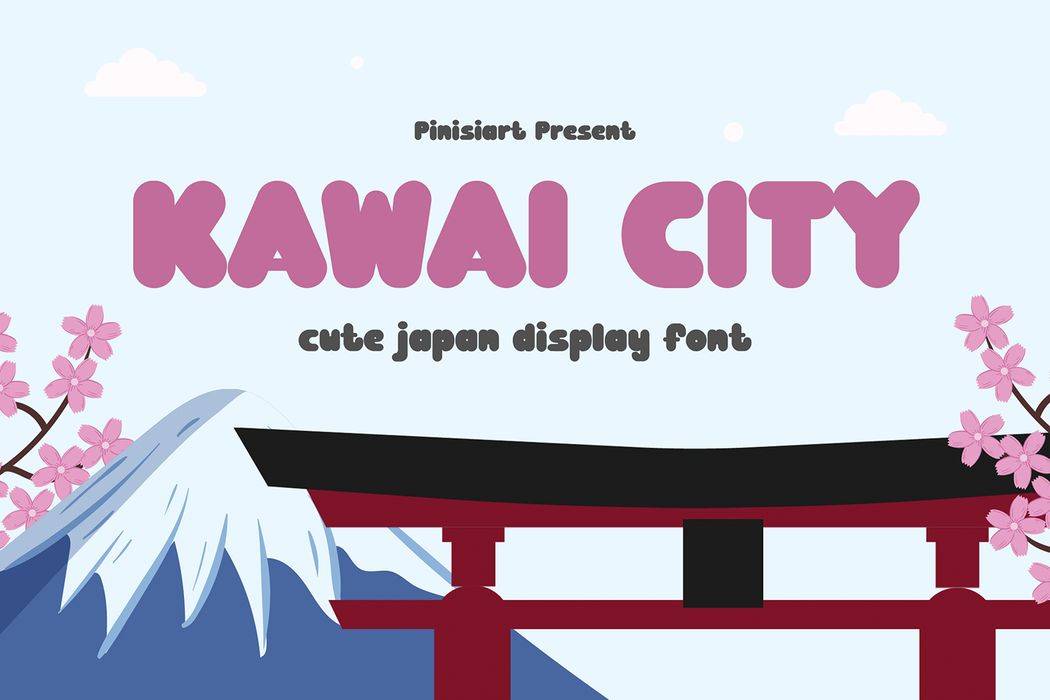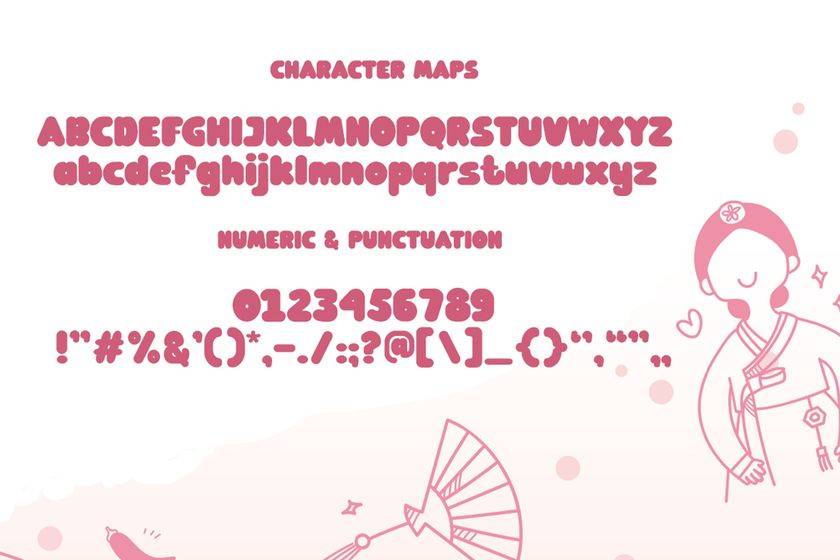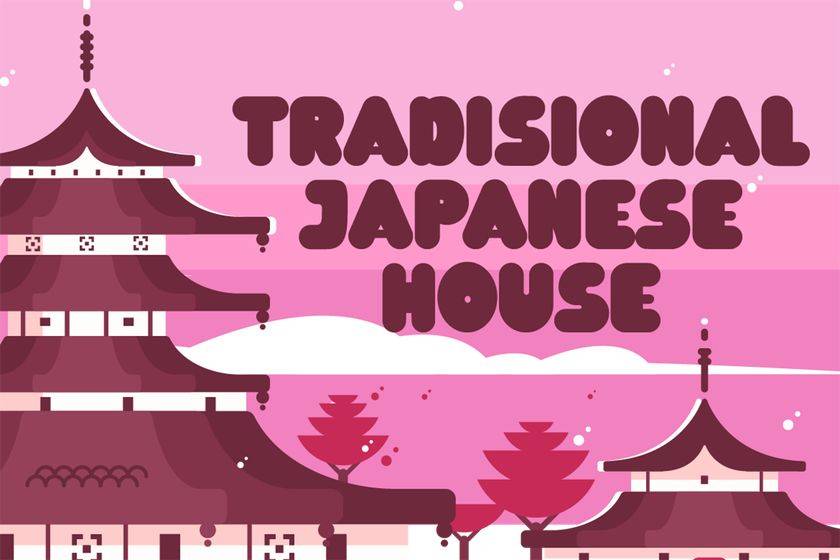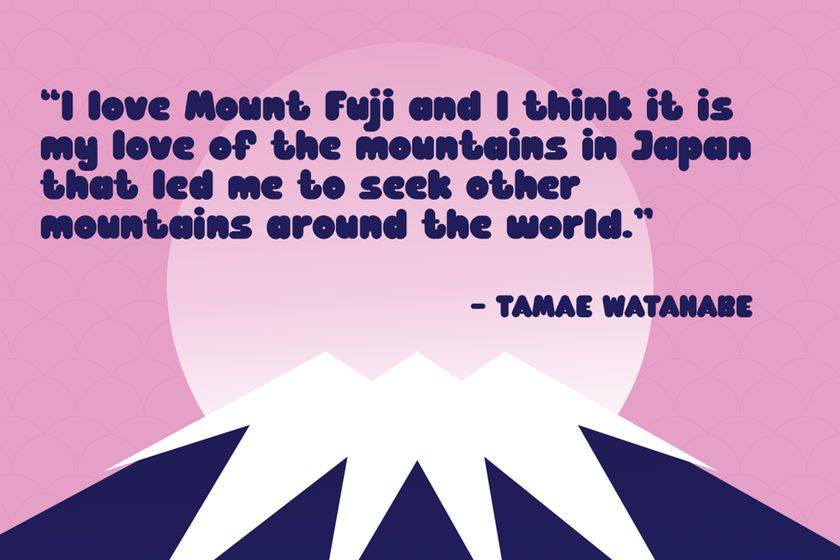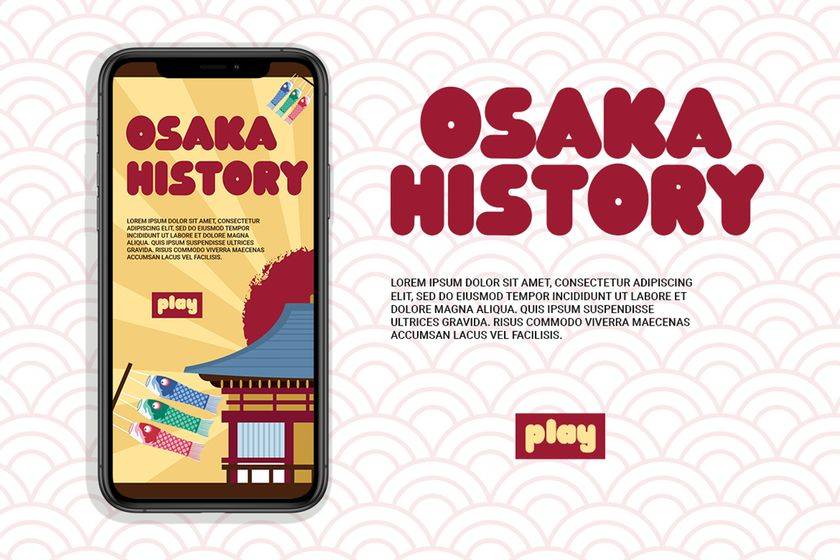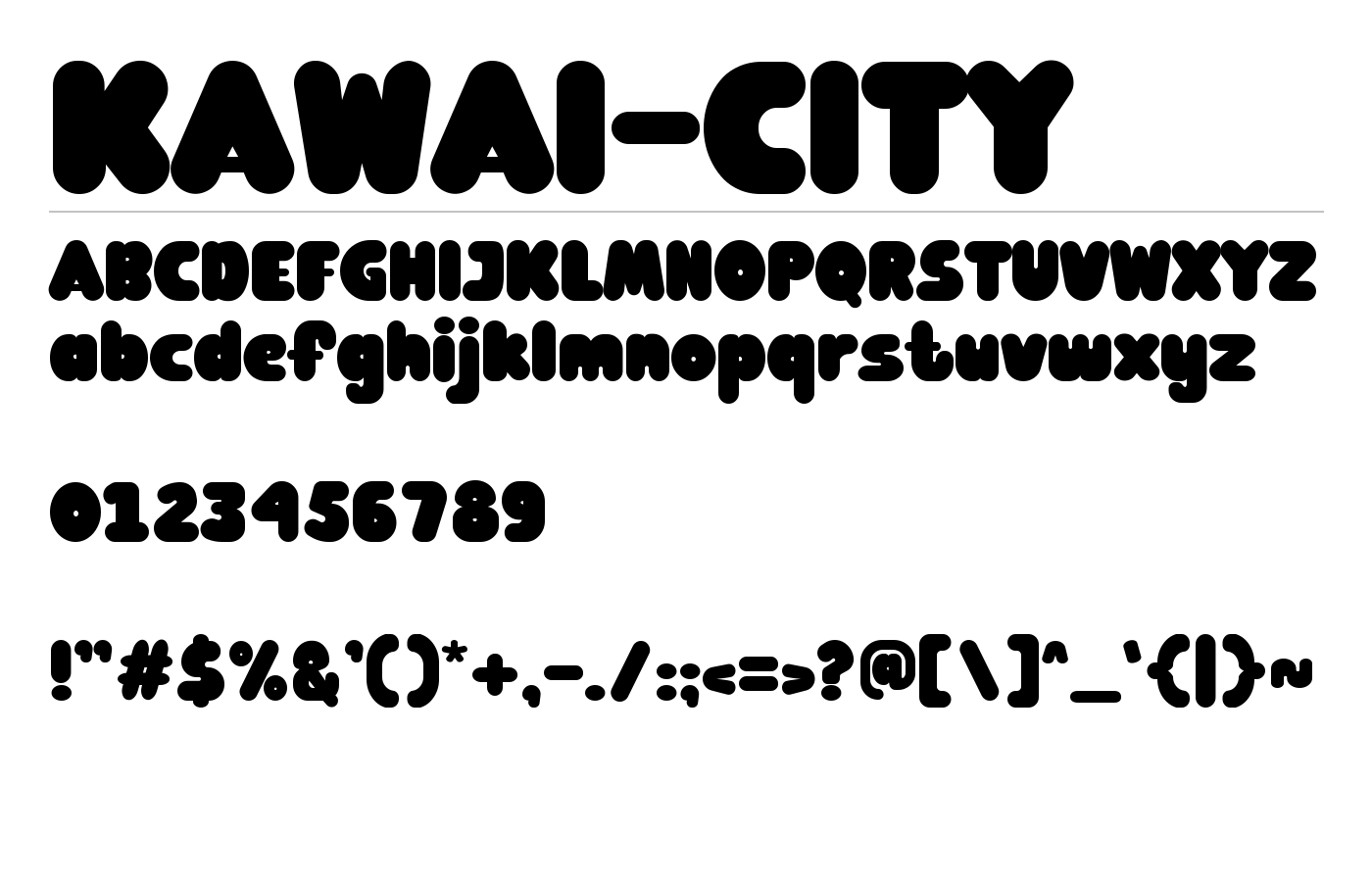
Kawai City is a bold, rounded sans serif font with a playful and modern personality. Its thick, soft strokes and high x-height create a friendly and approachable feel, making it perfect for fun branding, children’s products, and casual headlines. This font shines in designs that seek to convey warmth, creativity, and a contemporary vibe.
Kawai City Font
About Kawai City Font